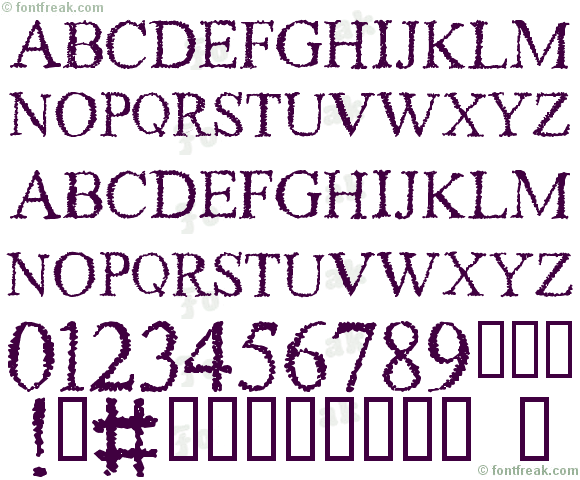
Piracy
The Piracy font by Pizzadude is a distinctive display typeface that captures the essence of adventure and rebellion. This freeware font features a decorative style characterized by irregular, jagged edges that evoke the rough and rugged aesthetics often associated with pirate lore. The stroke weight varies throughout the characters, creating an eye-catching contrast that enhances its bold presence. The spacing between letters is generous, allowing for an airy feel that complements the font's playful yet defiant character.
Ideal for a range of creative projects, the Piracy font is particularly well-suited for movie posters that aim to convey a sense of adventure or intrigue. Its unique style also makes it an excellent choice for themed party invitations, where a touch of whimsy and fun is desired. Restaurant menus, especially those with a nautical or adventurous theme, can benefit from the font's striking appearance, drawing patrons in with its bold personality. Additionally, graphic designers seeking to add an edgy flair to their projects will find this font invaluable for branding materials and merchandise.
Targeting graphic designers, small business owners, and content creators, the Piracy font offers a versatile option for those looking to make a statement. Its free availability allows for experimentation in various design contexts without the concern of licensing fees. The uniqueness of this font lies in its ability to blend fun and creativity with a rebellious spirit, making it a standout choice for any project that seeks to capture attention and inspire imagination. For those interested, a Piracy font free download is available, inviting users to incorporate this striking typeface into their work.